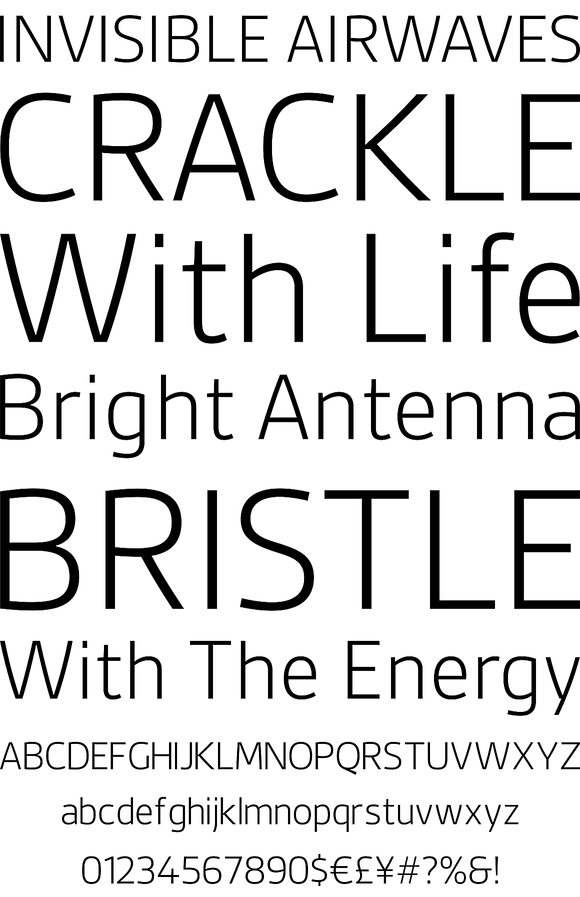
Gesta Complete
Foundry: Rui Abreu
Gesta is a friendly versatile sans serif typeface suitable for corporate and editorial purposes. With its generous x-height and slightly curved strokes, Gesta combines a distinctive and warm feel with a modern look. It is available in four weights from light to bold with four matching italics and its OpenType features include small caps and old style figures for every weight. Each of the Gesta fonts include a character set that supports the following central European languages: Croatian, Czech, Estonian, Hungarian, Latvian, Lithuanian, Polish, Romanian, Serbian (Latin), Slovak, Slovenian and Turkish.